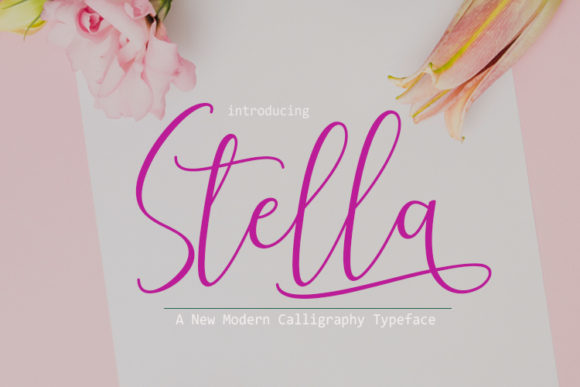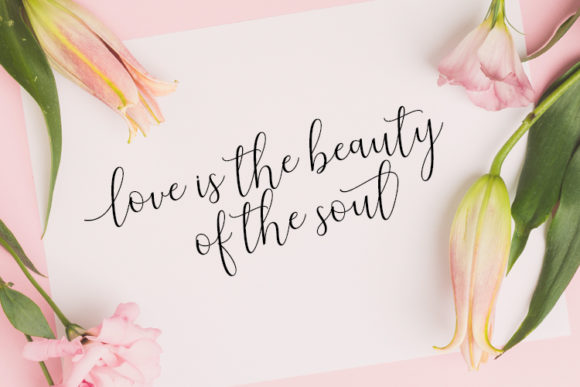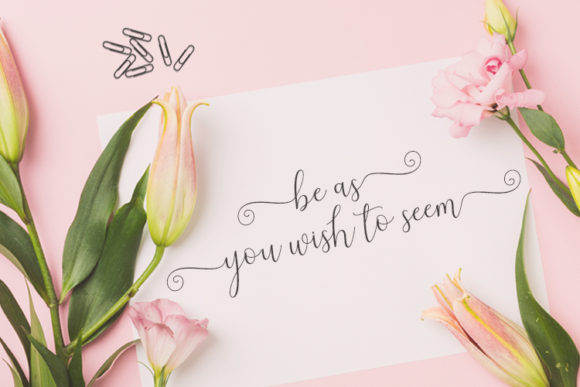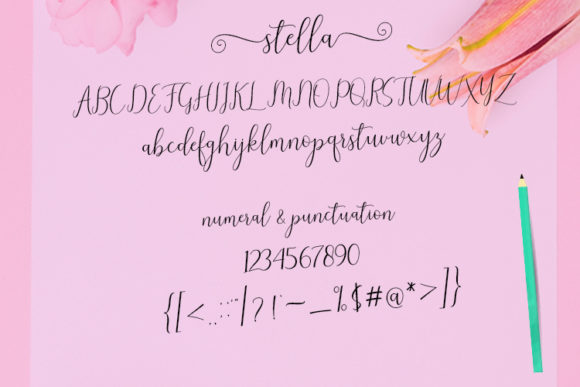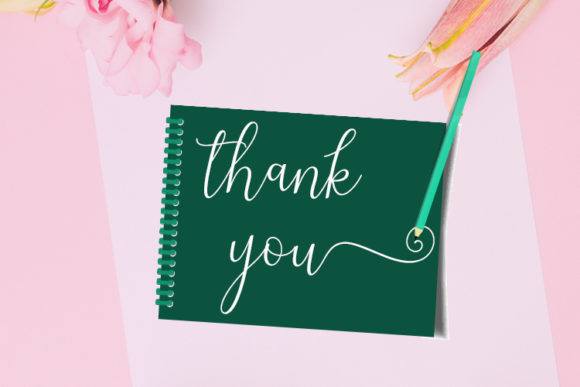
Stella Font
About Stella Font
The Stella is a modern calligraphy typeface. It has thin letters with a good readability which will give your designs an elegant touch.